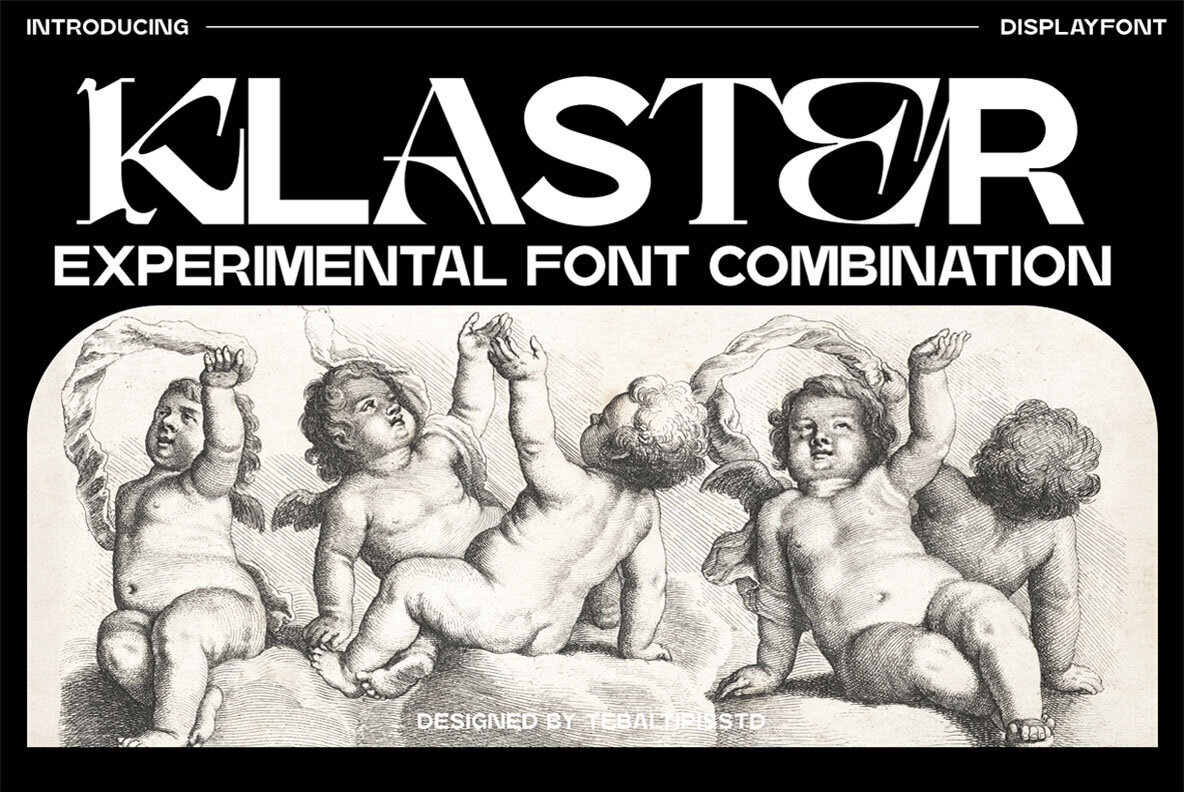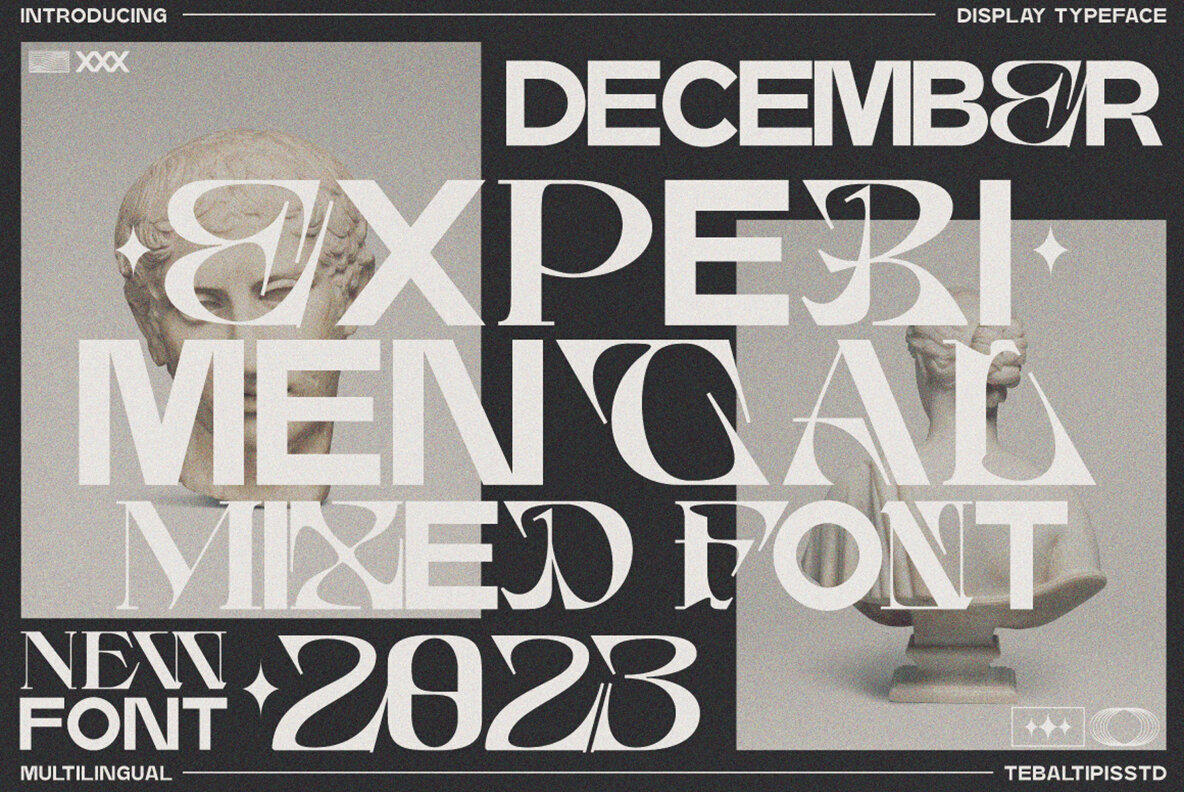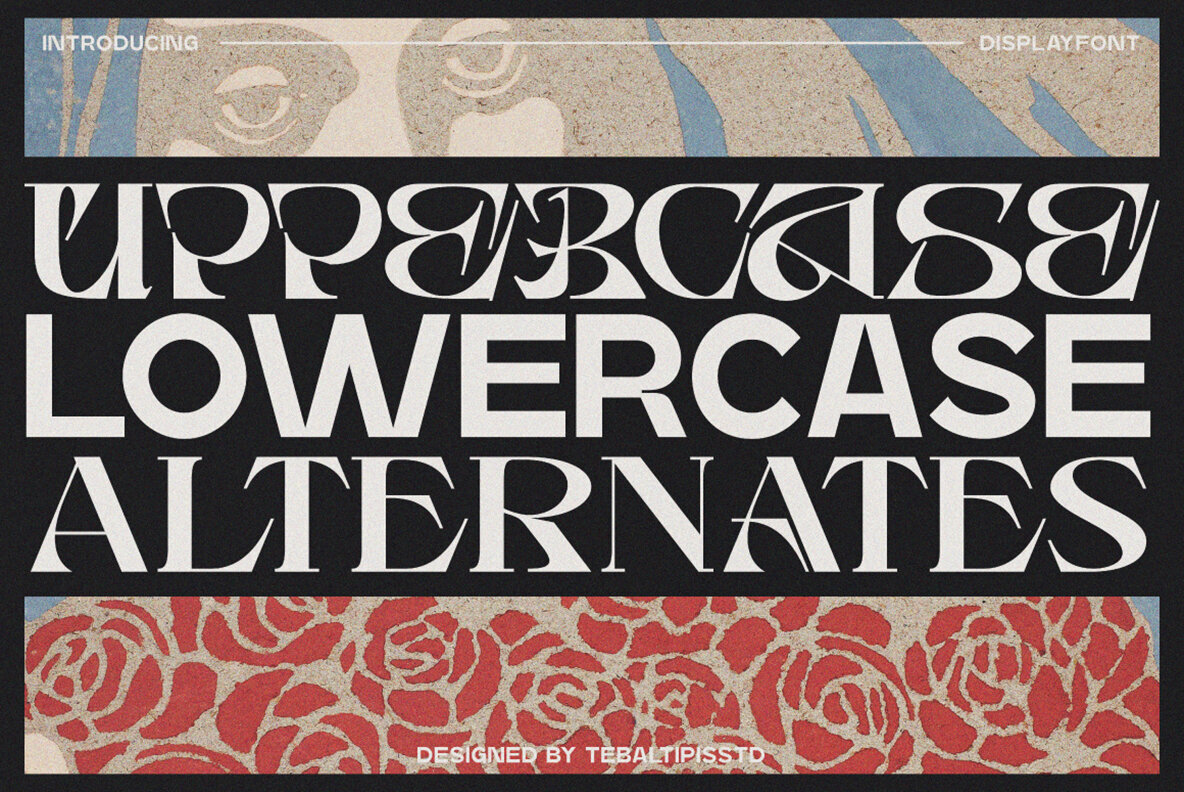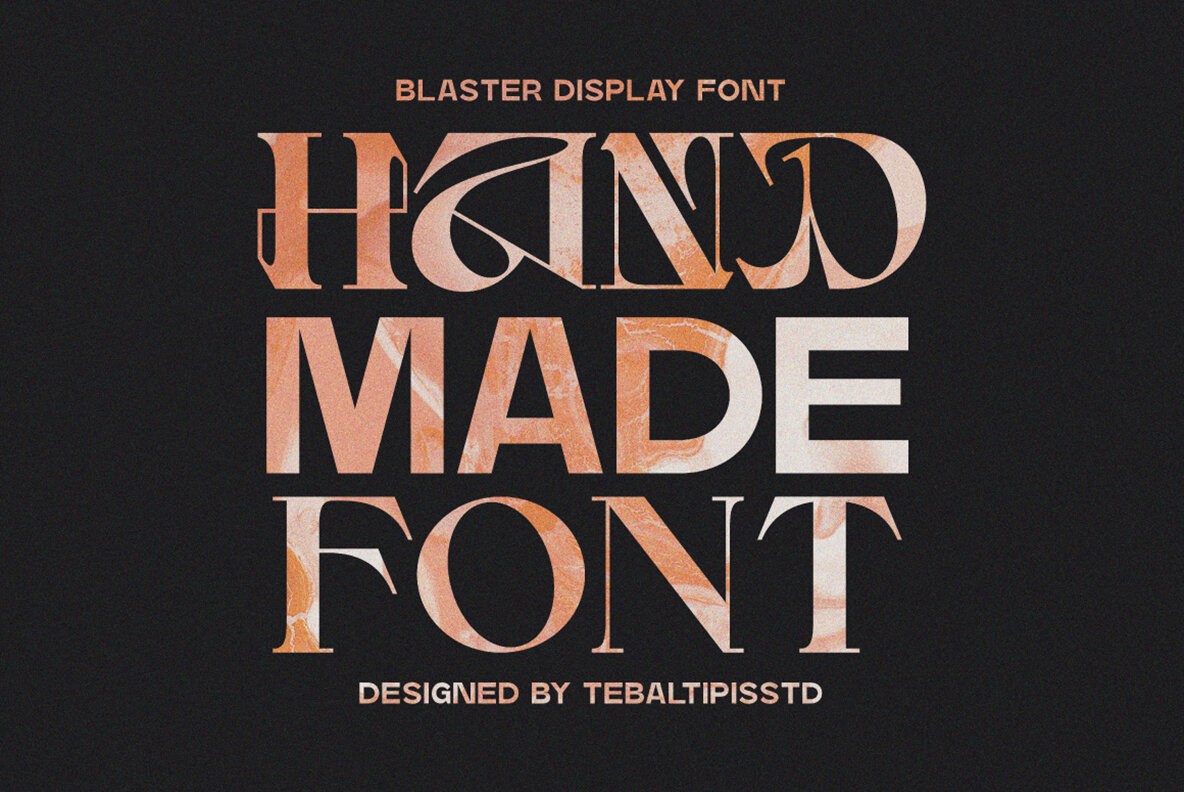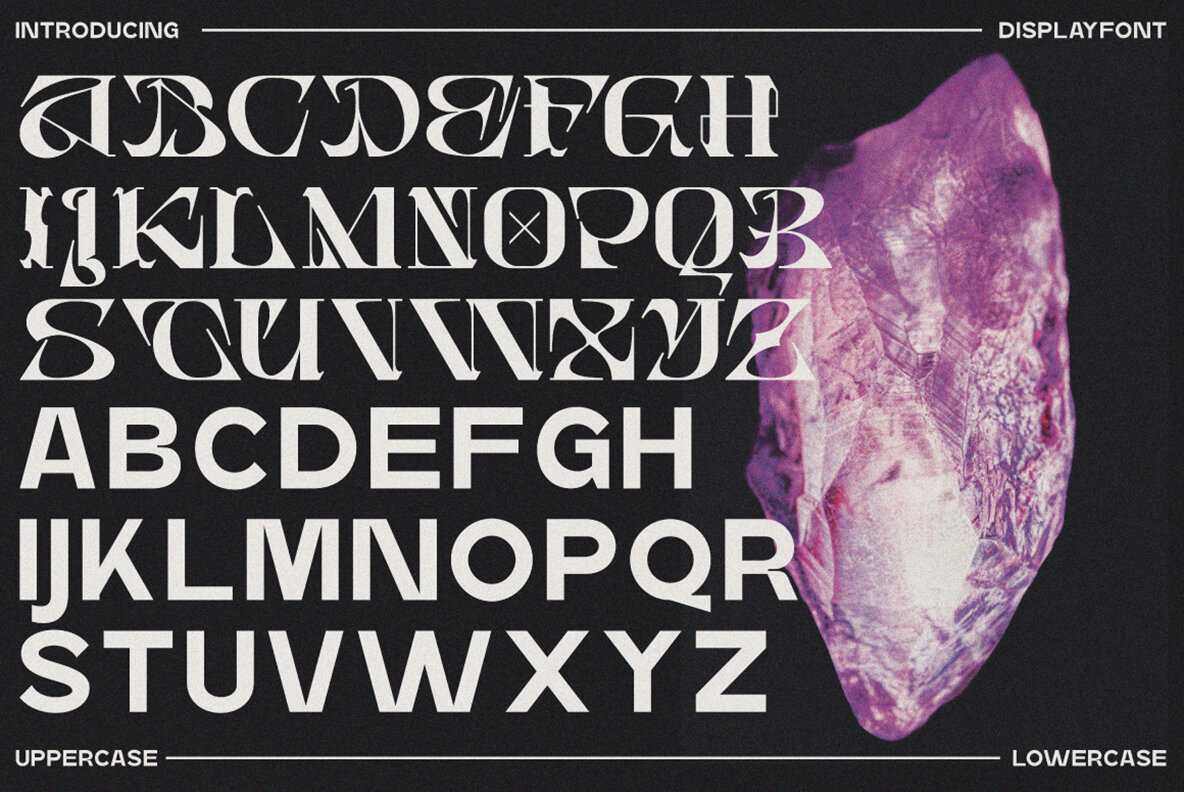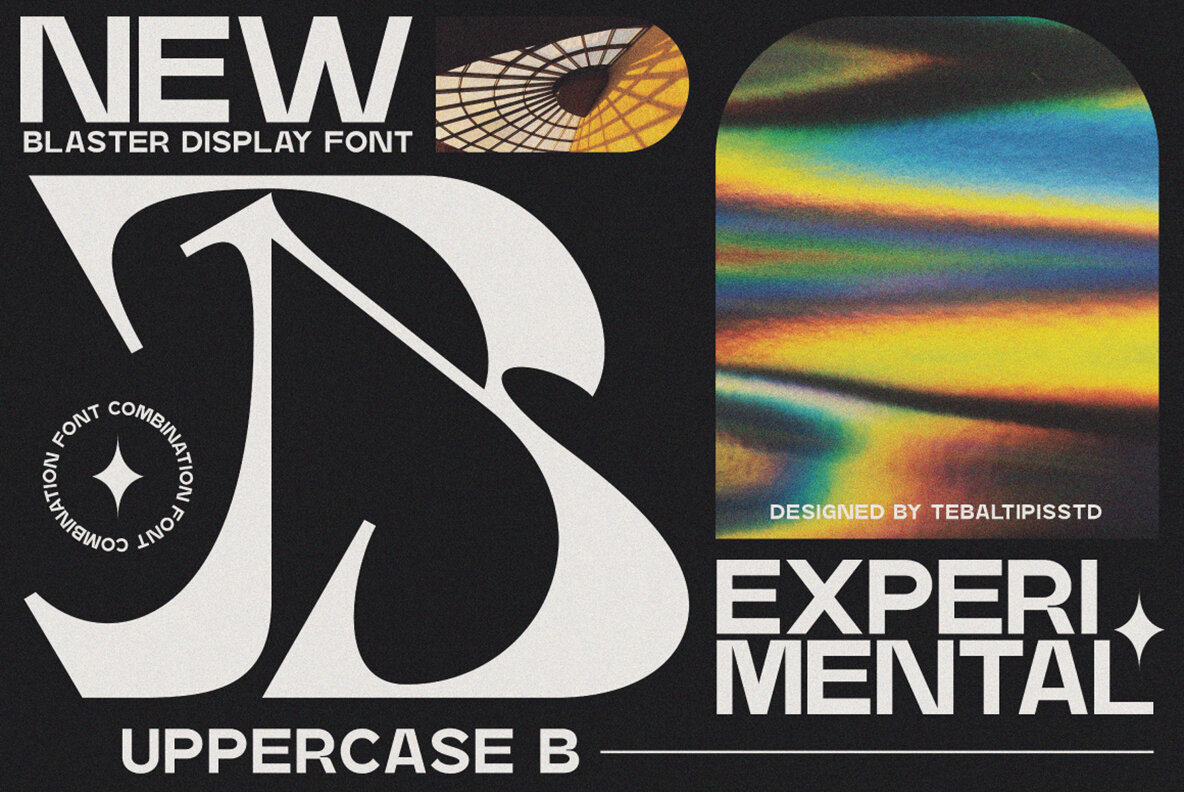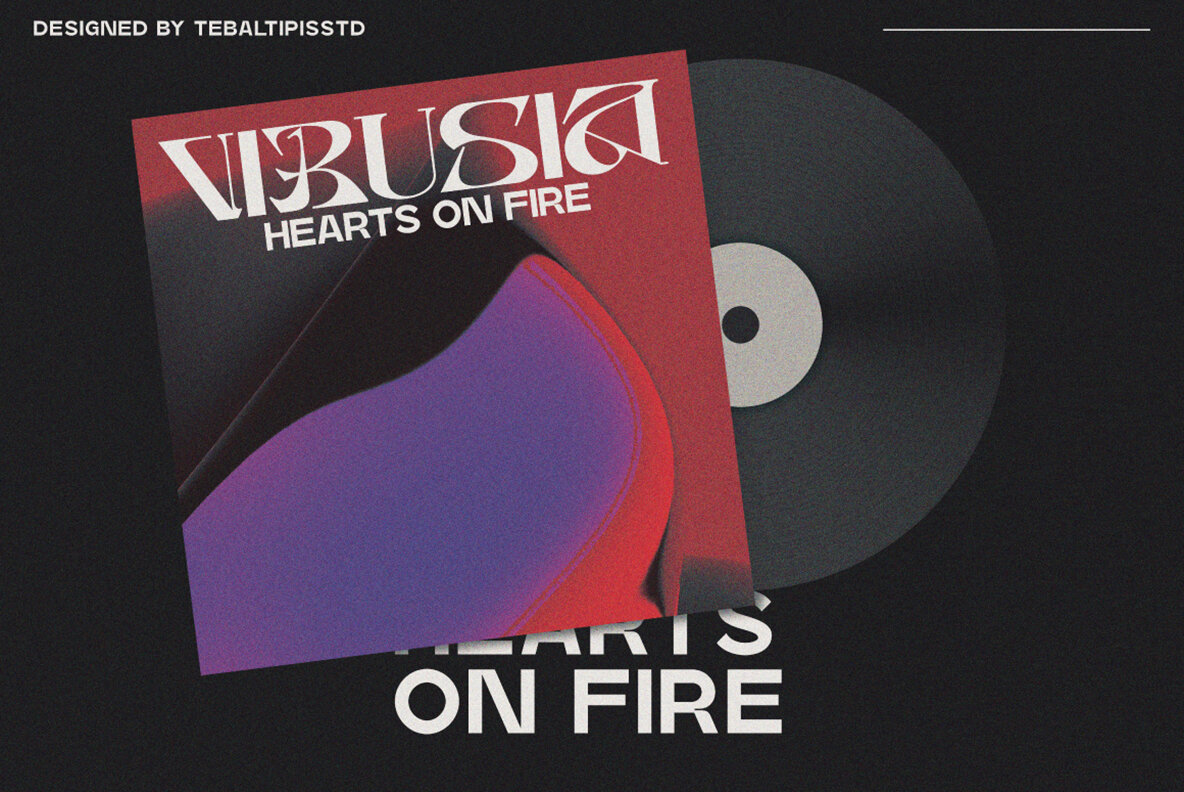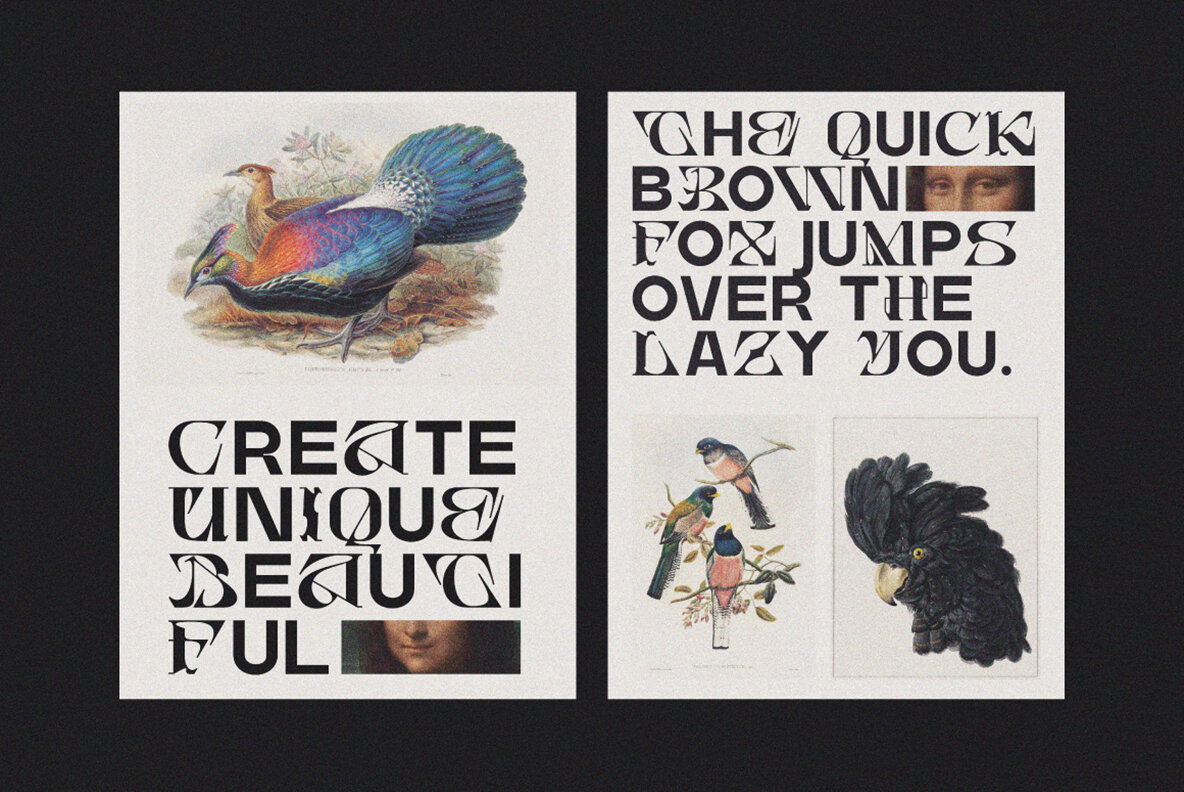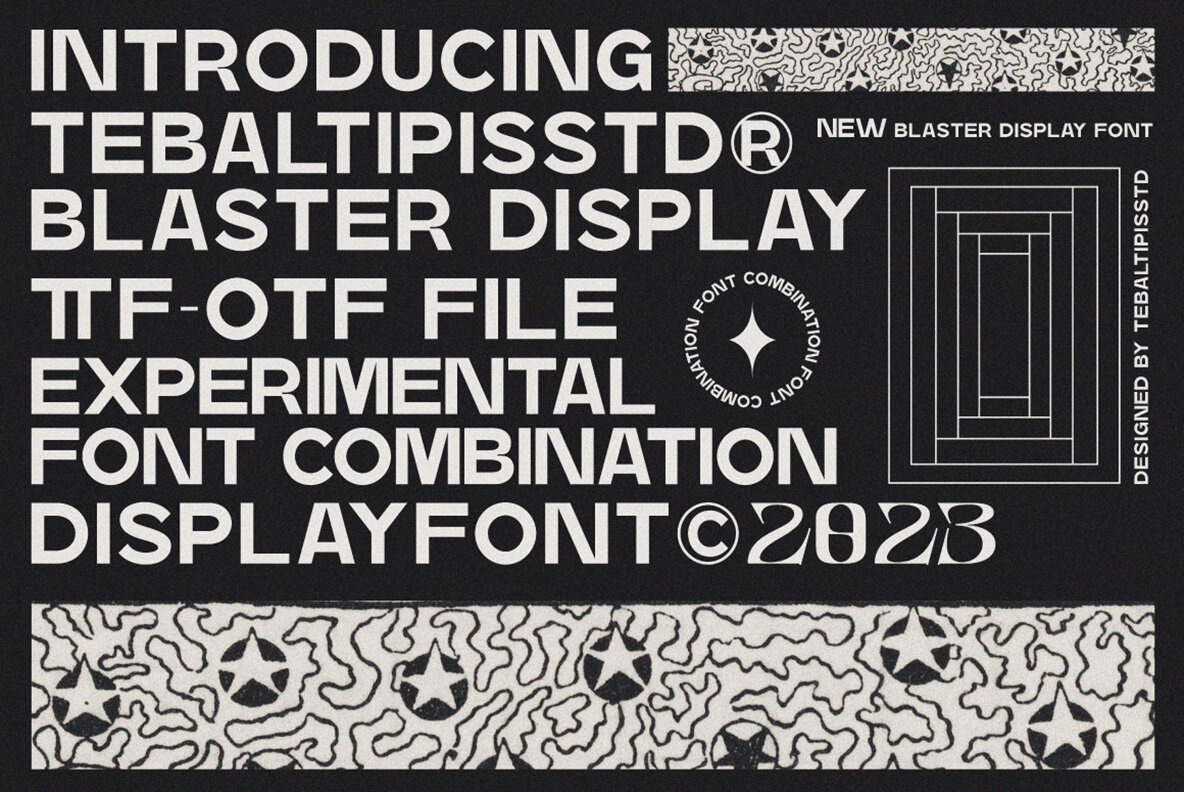
Klaster Font
Klaster Display Regular
Klaster Display is an innovative experimental font that brings together three distinct styles for a truly unique aesthetic. This diverse typeface offers an array of features, including alternative characters, ligatures, and comprehensive multi-language support, making it a versatile tool for graphic designers. Klaster Display is ideal for a variety of projects such as poster design, logo creation, branding, social media graphics, books, and magazines, offering flexibility and creativity to your design process.
Key Features:
- Unique letterforms that stand out in any design
Embrace the distinctive style of Klaster Display to enhance your creative projects effortlessly.